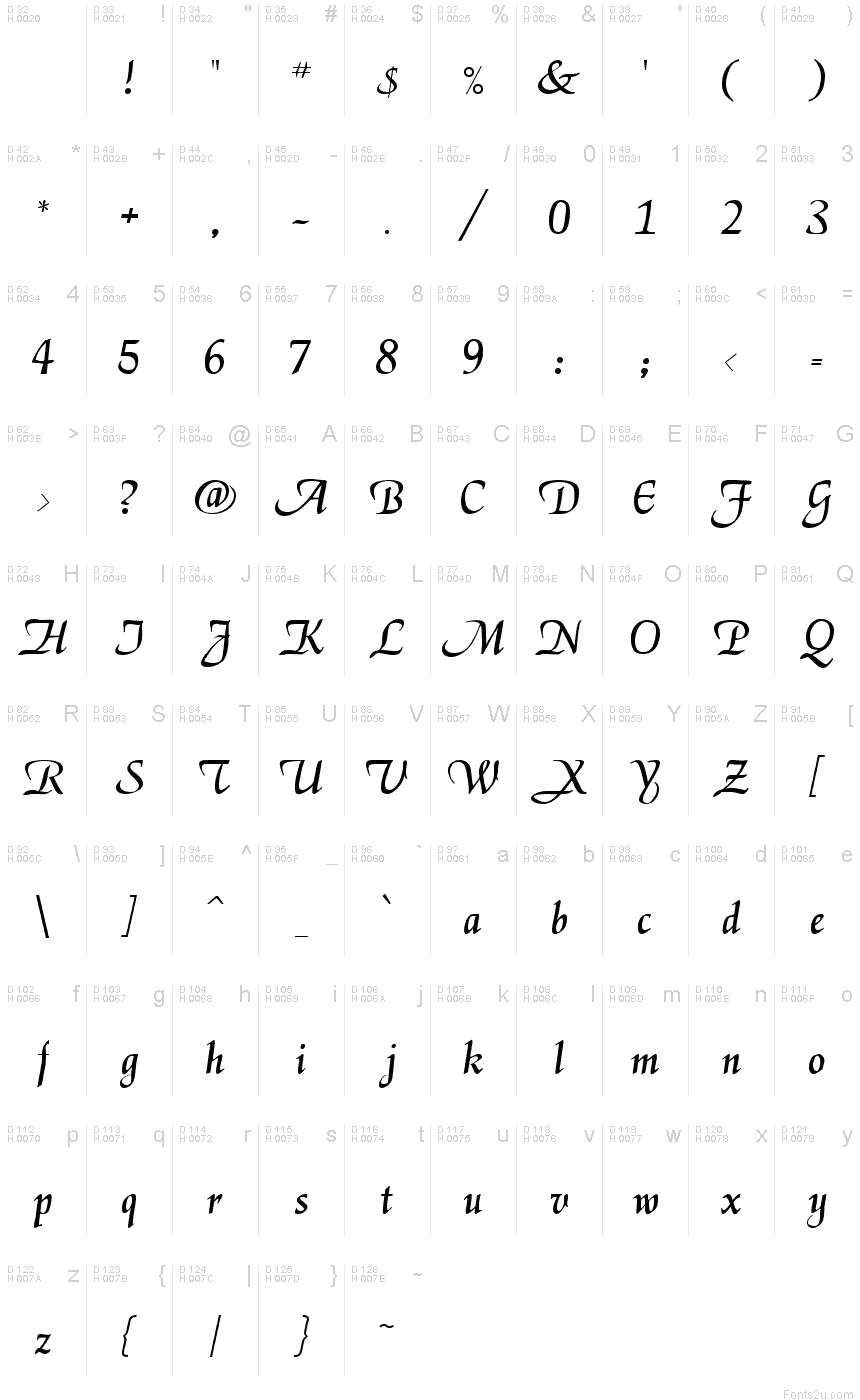
Magik font by Wizardworks is a free calligraphy typeface that captures the feel of quick, confident pen strokes on smooth paper. Its sweeping curves, generous slant, and inky, tapering lines give every word a sense of motion, as if it’s just been written by hand. There’s a touch of drama in the tall entry strokes and slightly pointed exits, making Magik look both elegant and a bit theatrical.
Using Magik, your titles and names instantly feel special, making this free font a natural fit for wedding invitations, event stationery, boutique logos, beauty packaging, certificates, and romantic quote graphics. It shines when used large, where the curves can breathe and show off their rhythm. For a balanced look, pair Magik with a clean, neutral sans serif for body text to let the script stay in the spotlight.